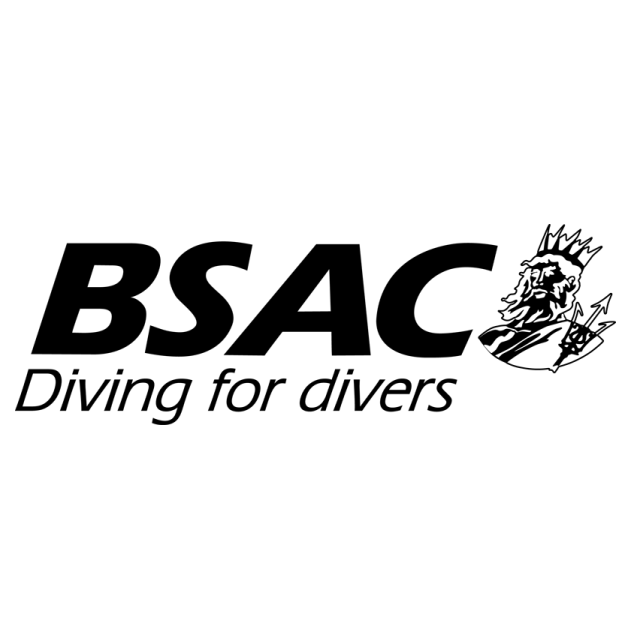
BSAC Logo Font
Fonts in UseThe British Sub-Aqua Club or BSAC is a leading organization in the UK for scuba diving training and exploration, promoting safe and enjoyable underwater experiences for divers of all levels.
The BSAC logo features Neptune, the Roman god of the sea, with "BSAC" in an italicized sans serif font similar to ITC Eras Bold. Designed by Albert Boton and Albert Hollenstein, Eras is a unique typeface with a slight forward slant and subtle stroke weight variations. More details and a font preview can be found here.